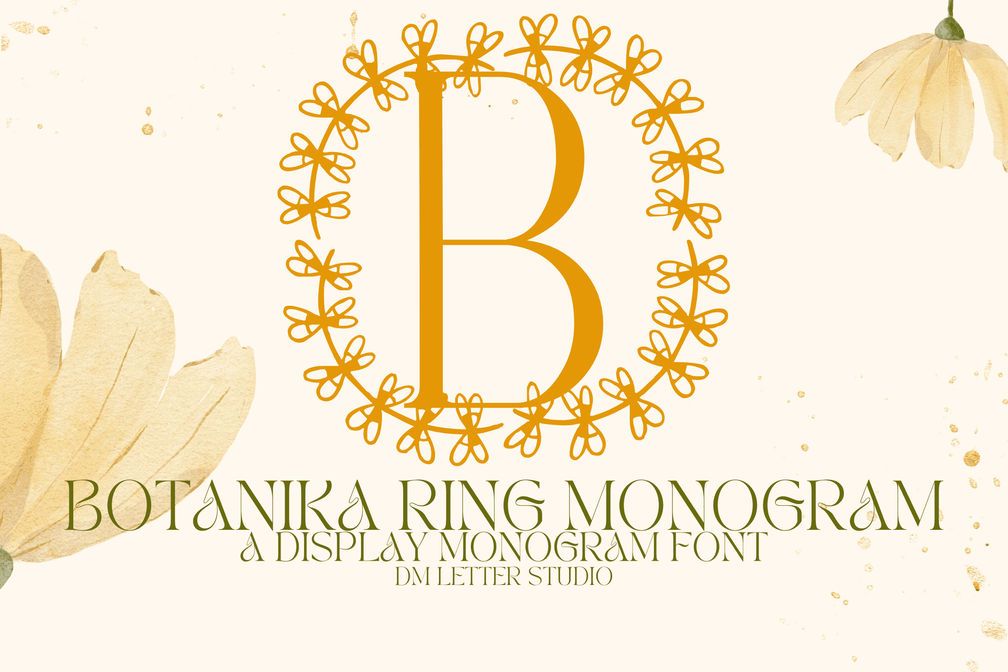
Botanika Ring Monogram
Botanika Ring Monogram – Elegant Floral Circle Monogram Font
Botanika Ring Monogram is a refined floral monogram font featuring uppercase initials enclosed in graceful botanical rings. Each letter is crafted with elegance and harmony, making it ideal for wedding branding, gift packaging, boutique logos, and creative monogram projects. With its nature-inspired details and timeless balance, Botanika Ring Monogram brings a soft, sophisticated touch to your designs.
• Floral Circle Style: Each uppercase letter sits beautifully within a hand-drawn botanical wreath.
• Nature-Inspired Aesthetic: Leafy details and flowing forms give this font a calming, organic look.